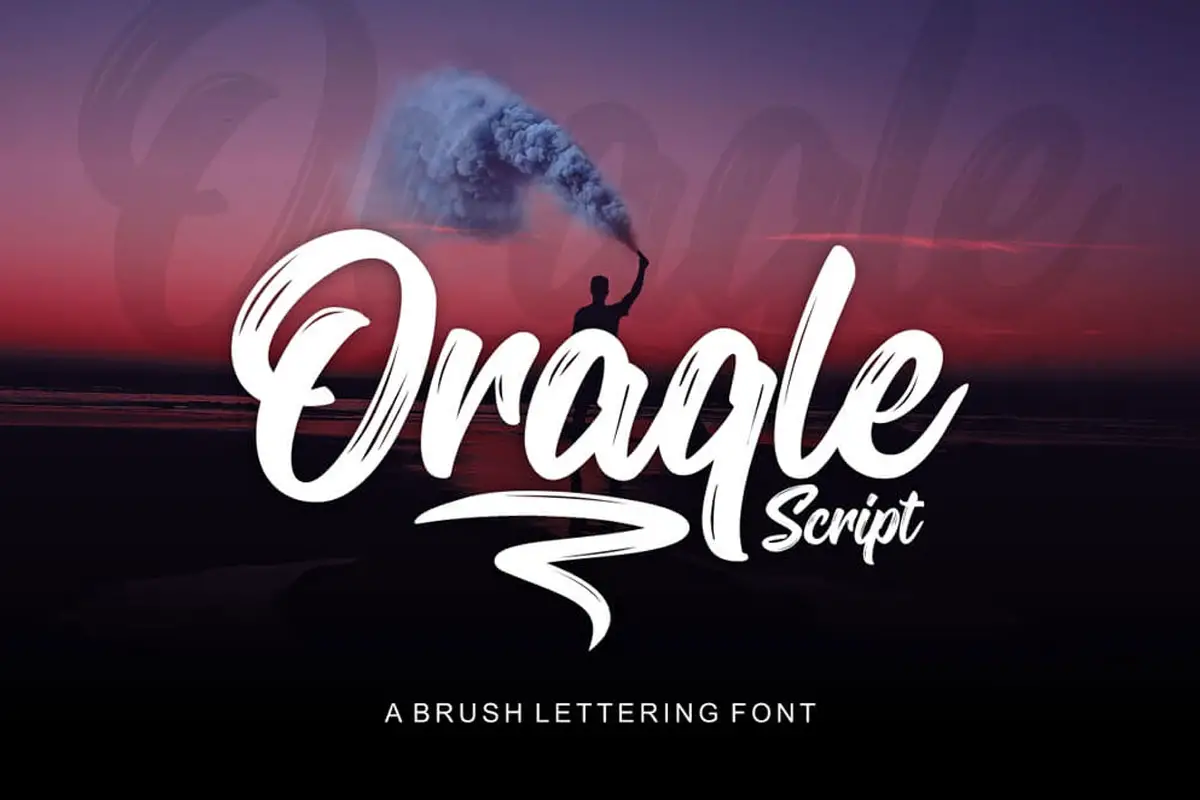
Free Script Fonts for Graphic Designers is here. Free script fonts are ideal for logo design, signature design for photographers, packaging, and other creative needs.
By just including the selected collection of free script fonts in the project you’re working on, you can substantially improve your design.
These typefaces can be used in site mock-ups, tattoos, badges, emblems, headings, posters, packaging, t-shirts/clothing, greeting cards, and wedding invites, among other things.
1. Billenia – Free Script Font
Billenia is a handwritten typeface with stylistic alternatives and swashes that allow you to build your own signature style typography.
2. Barcelony Signature
Barcelona Signature is a trendy monoline signature script that is attractive and clean. Barcelony Signature is ideal for branding projects, logos, wedding designs, social media posts, ads, product packaging, product designs, label, photography, watermarks, invitations, stationery, and any other projects that require a touch of handwriting.
3. Oraqle Script – Free Font
Oraqle Script is a free brush lettering font from Universal Hands with powerful strokes and genuine brush texture that will make your design pop.
Oraqle Script has a sleek design and great movement.
Logos, printed phrases, badges, insignias, packaging, headlines, posters, t-shirts/apparel, greeting cards, and wedding invitations are just a few examples of what you may do with it.
4. Lovebird – Free Lovely Script Font
Letterafa Studio’s Lovebird is a free gorgeous script typeface.
It contains flowing letters that will add a unique and pleasant aesthetic to your creations, as well as wonderful titling characteristics.
It also comes with a plethora of fantastic swashes and variants for creating stunning typographic designs. The Lovebird script font is perfect for greeting cards, packaging, branding, craft design, book titles, wedding invitation, packaging, and so more.
5. Voltury Vintage Script
Voltury is a vintage typeface created by the hand lettering. This script was deliberately designed to have a good flow and character and was inspired by classic American signage and packaging.
6. Oliotton Script Font
7. Yolanda Love Script
Yolanda is an elegant script typeface with a changing baseline, a smooth line, a modern feel, and a passion for depth.
It may be used for different applications such as headers, weddings, invitations, signatures, logos, branding, t-shirts, letterhead, signage, label, news, posters, badges, and so on for those of you who need a touch of love and modernism in your designs or branding.
8. Briele – Free Script Font Trio
Briele is a collection of Pixel Surplus’s free-hand drawn script typefaces.
It includes three font files, including an italic and alternative variant, as well as a swash font!
It’s ideal for stationery, logos, branding, posters, social media, ad banners, wedding invites, greeting cards, and a whole lot more!
9. Alisson Script
Alisson is a beautiful script typeface.
It has a modern and stylish appearance that may be utilized to bring a unique personal touch to your projects.
Logos, branding, invites, stationery, wedding designs, social media, commercials, labels, watermarks, and much more can all be done with it.
10. Rainbay Script
Rainbay Script is a completely free typeface that you may use in any project, whether personal or commercial. Logos, branding, invitations, stationery, wedding designs, social media, advertising, labels, and watermarks may can all be done with it.
11. Kallem Script- Free Font
Khaiuns has released Kallem Script, a new attractive modern typeface with natural shifting widths.
This typeface is ideal for signature logos, watermarks, wedding invites, and many more uses.
12. Adrenaline – Free Script Font
Adrenaline is a colorful, contemporary, and multi-purpose script typeface developed by Larin Type Co.
This typeface is ideal for logos, prints, quotations, magazine headings, and clothes, among many other applications.
13. Janelle Script
The Janille font is a lovely script typeface.
Its handwritten look is ideal for logos, wedding invitations, birthday cards, quotations, headlines, posters, and any other design that calls for a sophisticated font. This typeface includes swashes, which may give a lovely touch to any creative project.
14. Punch Limit – Free Script Font
Punch Limit is a funny free-hand-painted script typeface created by Maulana Semar.
It has bold capital letters that create a great statement, as well as naturally flowing lowercase letters.
Great for editorial and magazine design, as well as advertisements, promotions, and package design.
Its lengthy descenders definitely set it apart. This product comes with a lot of ligatures and swashes, so you can quickly make logos, quotations, and marketing materials with only a few clicks.
19. Restless – Free Brush Script
Hustle Supply Co.’s Restless is a lovely free-hand-drawn brush script.
It has a signature style with natural flowing characters created with an authentic brush feel.
The loose baseline lends a relaxed feel to this font, making it ideal for quotes, signature logos, cards, packaging, and more.